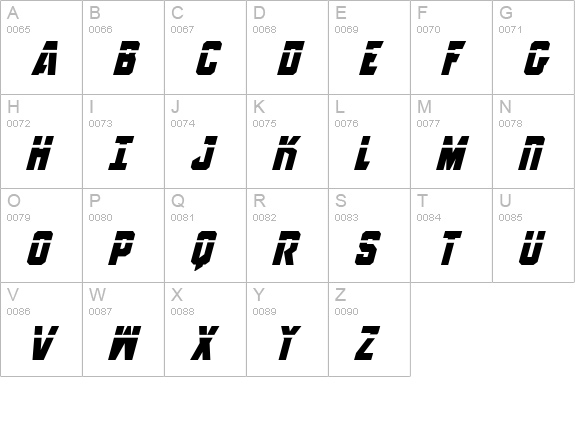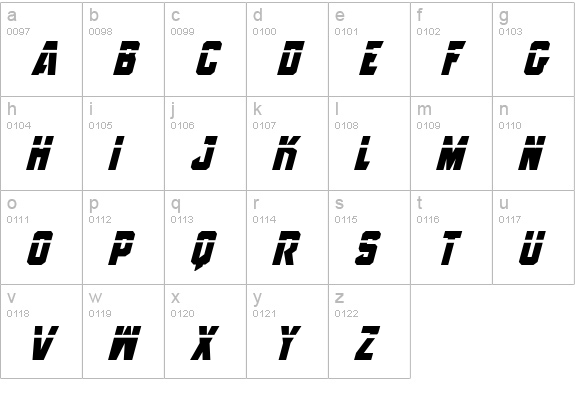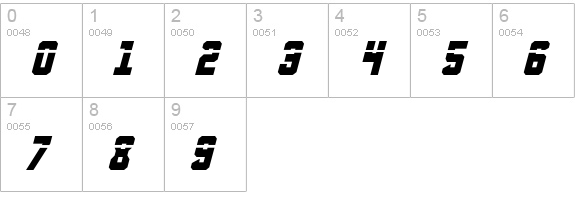
Anitlles Laser Italic is a distinctive, italic variant in the Anitlles typeface family \xE2\x80\x94 well suited to design and typography projects.
The Anitlles Laser Italic font is a sleek and modern typeface that exudes sophistication and elegance. Its sharp, laser-cut-inspired design gives it a unique and futuristic look that is perfect for projects that require a touch of avant-garde flair. The italicized style adds a dynamic and stylish touch to any text, making it stand out with its bold and confident appearance. Best of all, the Anitlles Laser Italic font is available for free download at FontsMarket.com. This means you can easily access this stunning typeface without any cost, making it a valuable addition to your font collection. Whether you're working on design projects, branding materials, or creative endeavors, the Anitlles Laser Italic font is sure to make a statement and elevate your work to new heights. Don't miss out on the opportunity to enhance your designs with this striking and eye-catching font - download it for free today!